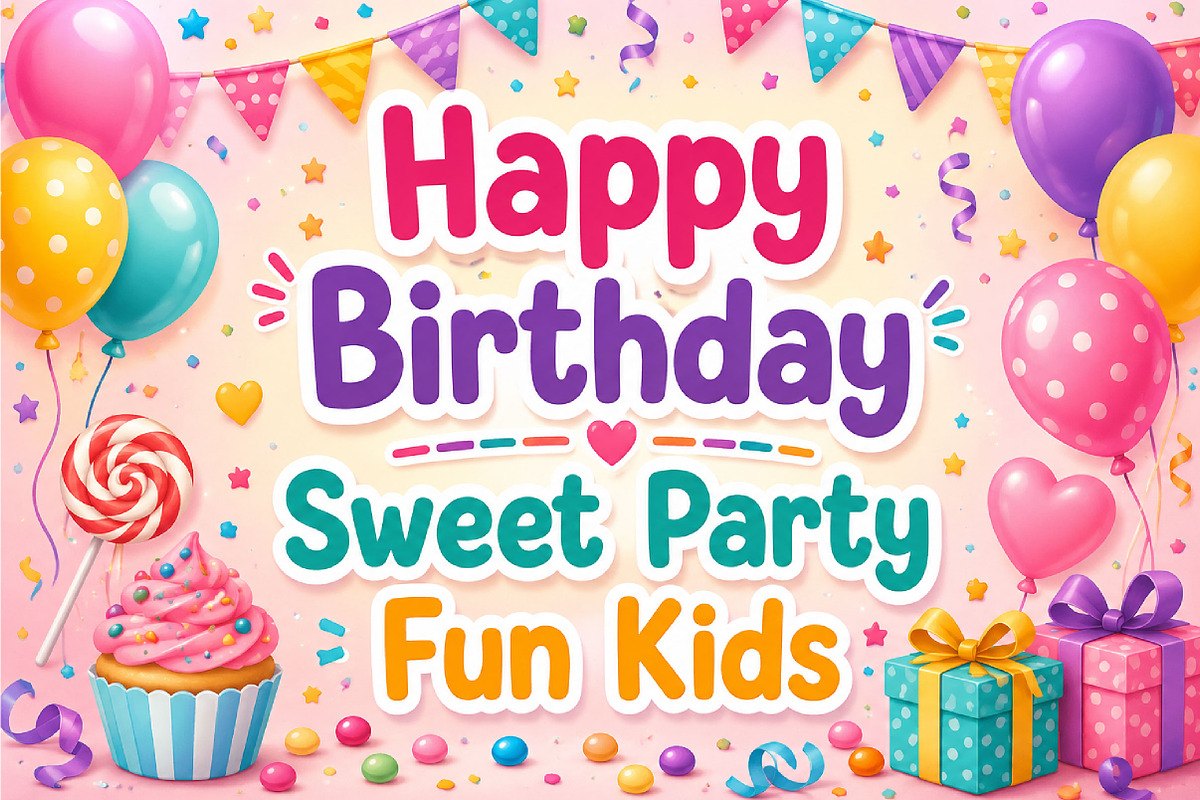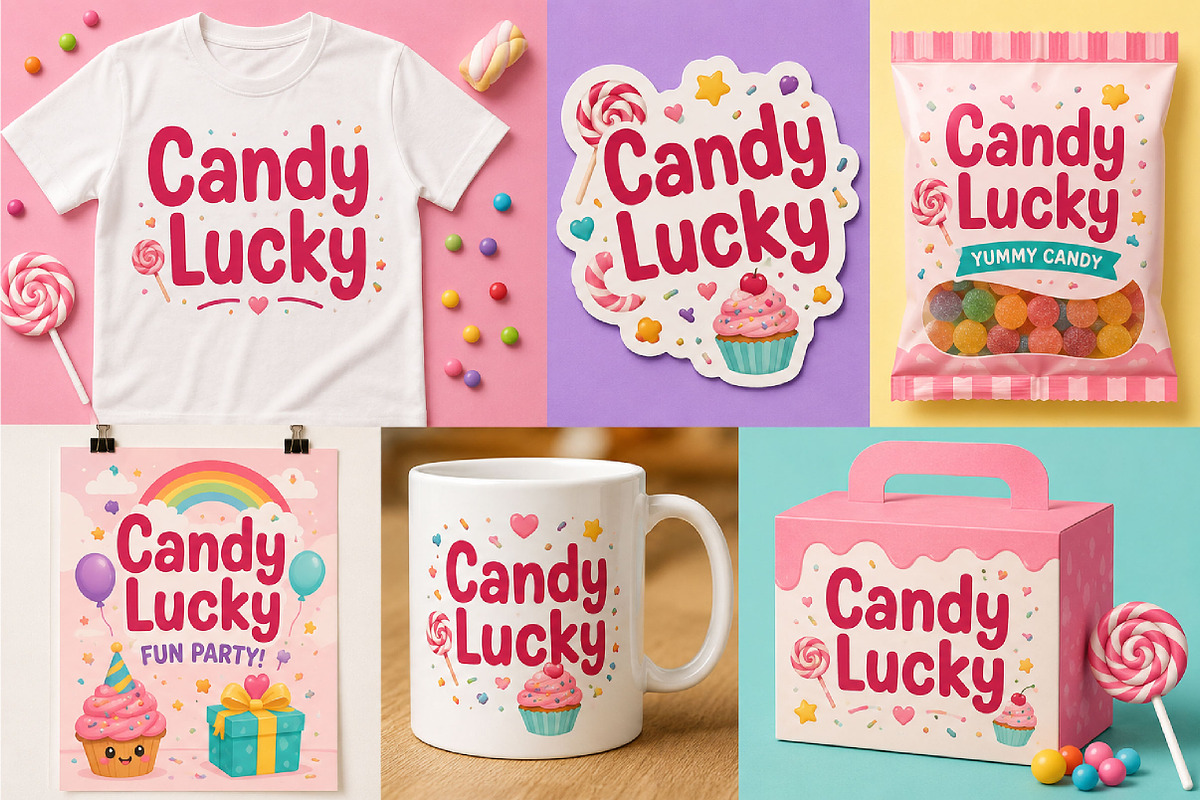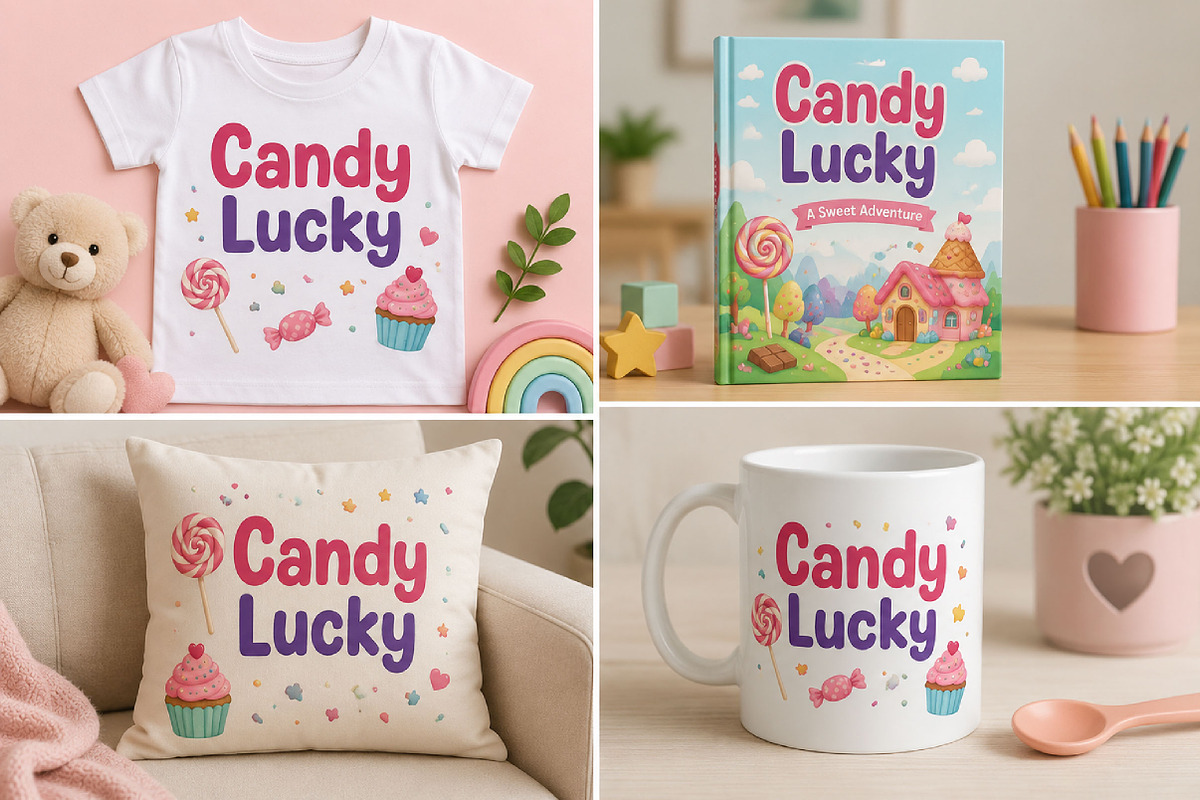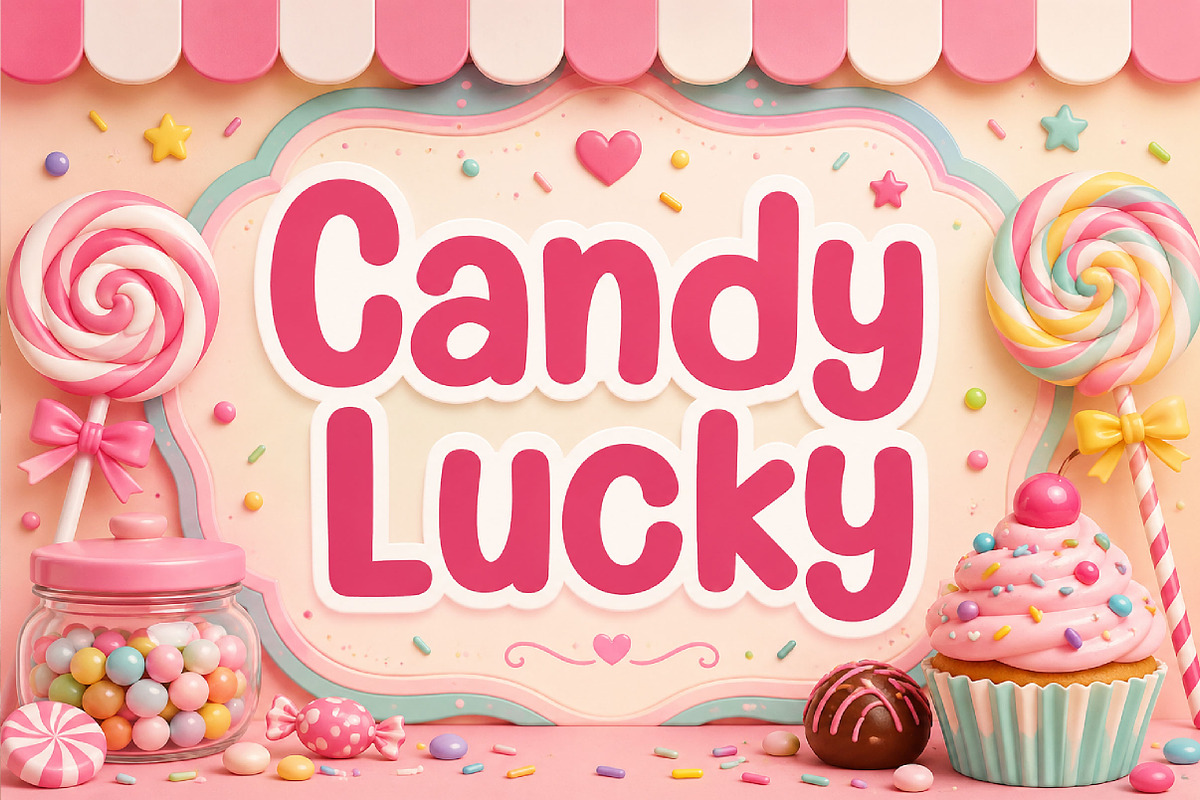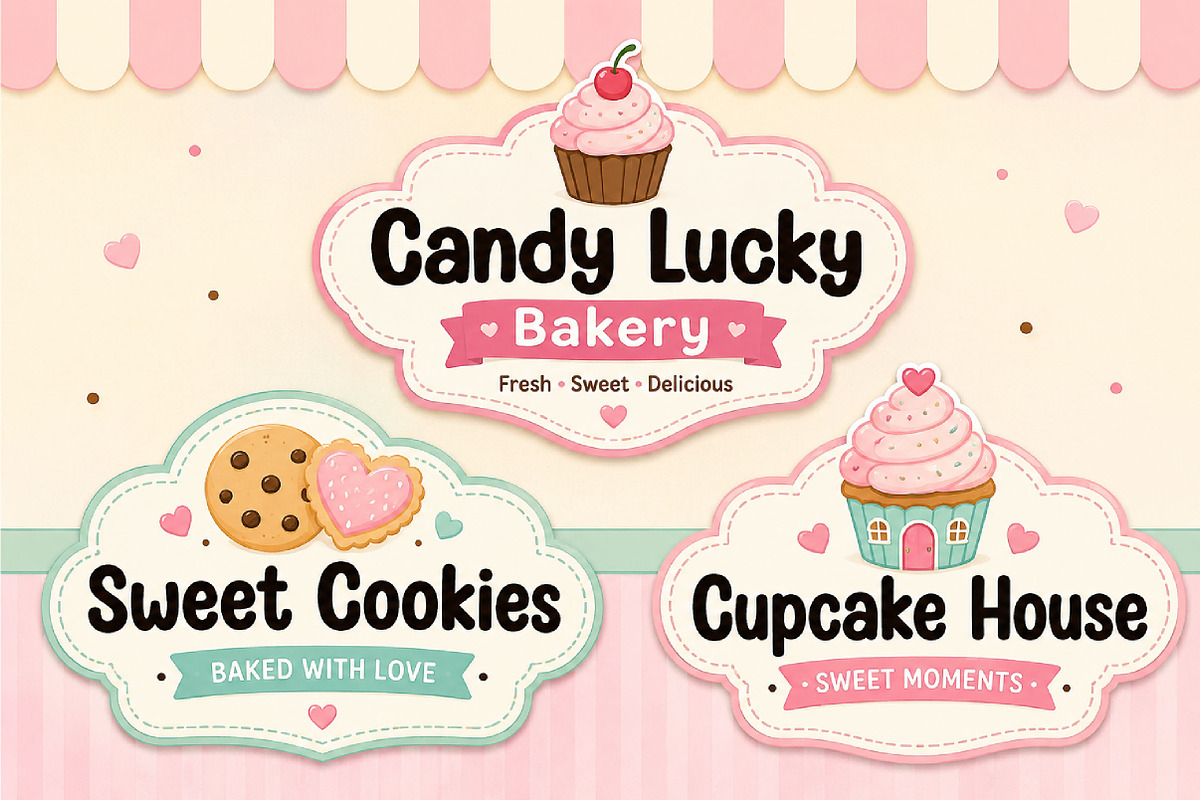
Candy Lucky
Candy Lucky – Sweet Rounded Display Font
Candy Lucky is a sweet, playful, and rounded display font perfect for kids’ designs, candy branding, packaging, posters, logos, and cheerful creative projects.
Candy Lucky is a fun and charming display font designed to bring happiness, warmth, and playful energy into your designs. Featuring thick rounded letterforms and soft curves, this font creates a cute and friendly appearance that instantly catches attention.
Inspired by sweet candy-style typography, Candy Lucky is perfect for projects that need a cheerful and youthful vibe. Whether you are designing packaging, posters, logos, children’s products, stickers, party graphics, or social media content, this font adds a joyful and approachable personality to every layout.
Its smooth handwritten-inspired structure keeps the font highly readable while maintaining a playful and modern display style. Candy Lucky works beautifully across both print and digital media, making it ideal for creative designers who want typography that feels bright, fun, and full of charm.
Perfect for bold headlines and cute branding, Candy Lucky delivers a delightful visual style that stands out in any creative project.
Kids and children’s designs
Candy and snack branding
Packaging design
Cute logo design
Posters and headlines
Stickers and merchandise
Greeting cards
Party and event graphics
YouTube thumbnails
Fun display typography
Uppercase letters
Lowercase letters
Sweet rounded style
Bold playful appearance
Friendly and cheerful character
Easy-to-read display font
Perfect for fun creative projects